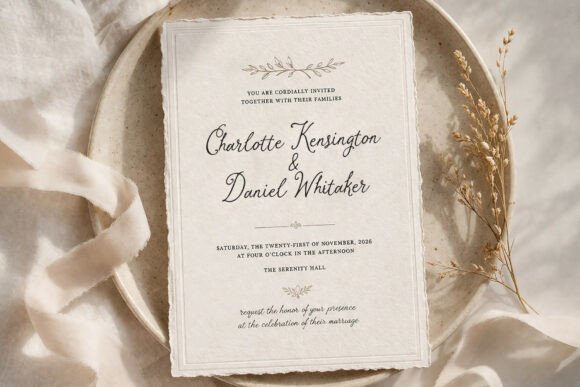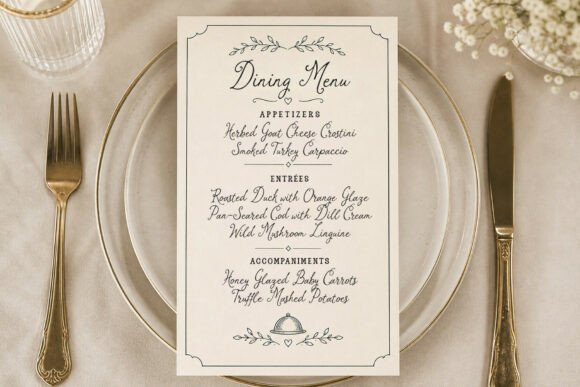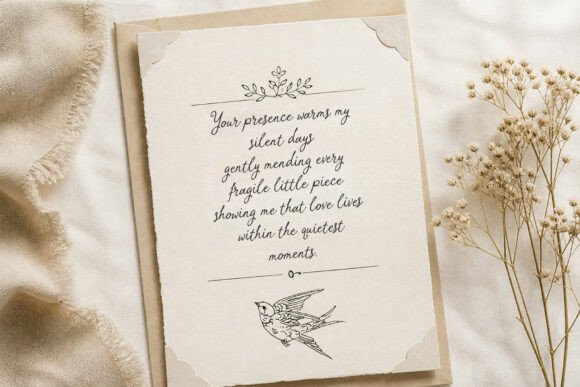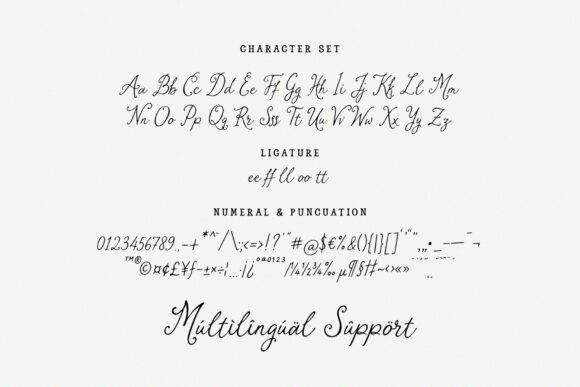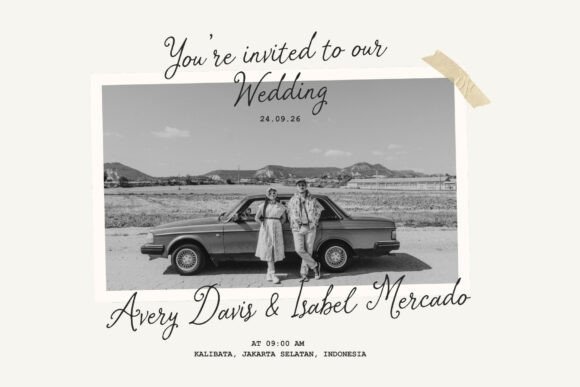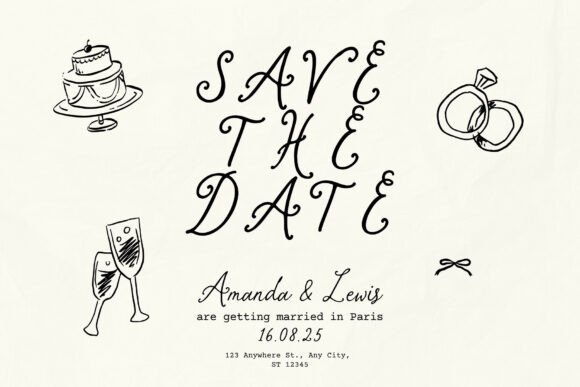
Introduction to Charite Atelier Font
As a designer, there’s nothing quite like the thrill of stumbling upon a new font that perfectly captures the essence of your creative vision. For me, that moment came when I discovered the Charite Atelier Font – a beautiful, handmade script font that exudes elegance, romance, and timeless beauty.
With its flowing curves and delicate strokes, this font brings a natural handwritten feel that’s both sophisticated and personal. Whether you’re working on a high-end design project or a personal creative endeavor, the Charite Atelier Font is sure to elevate your work to new heights. Its smooth connections and refined aesthetic make it a valuable resource for designers who demand only the best.
Key Features of Charite Atelier Font
- High-quality design resource ideal for creative projects requiring a sophisticated look and feel.
- Comprises a versatile font family with a range of styles and weights, suitable for various design applications.
- Designed with precision and attention to detail, ensuring a polished and professional appearance in any creative project.
Honest Review: Charite Atelier Font
I recently had the chance to dive into the world of typography with the Charite Atelier Font, and I must say, I was impressed. This high-quality font is a fantastic addition to any designer’s toolkit, and it’s available as a free download, making it an even more attractive option.
What works well is the font’s versatility. It’s perfect for any creative project that requires a touch of elegance and sophistication. The Charite Atelier Font features a beautiful, delicate design that’s sure to elevate your work. Plus, the transparent background makes it easy to integrate into any design without any visual distractions.
- ✨ Elegant and sophisticated design
- ✨ Versatile and suitable for various creative projects
However, I did notice a few limitations. The font selection is relatively limited, and there are no bold or italic versions available. This might be a drawback for some designers who prefer a more comprehensive font library.
Overall, I’d say the Charite Atelier Font is a solid design resource that’s definitely worth exploring. Its high quality and elegant design make it a great addition to any designer’s toolkit. While it may have some limitations, it’s still a valuable resource for any creative project.
Tips for Getting the Most Out of Charite Atelier Font
To get the most out of Charite Atelier Font, experiment with different font sizes and styles to create visually appealing designs. You can also use the font in combination with other design elements to create a unique look.
Common Use Cases for Charite Atelier Font
Charite Atelier Font is ideal for use in creative projects such as branding, marketing materials, and digital designs. Its transparent background makes it easy to use in a variety of design contexts, from website headers to social media graphics.